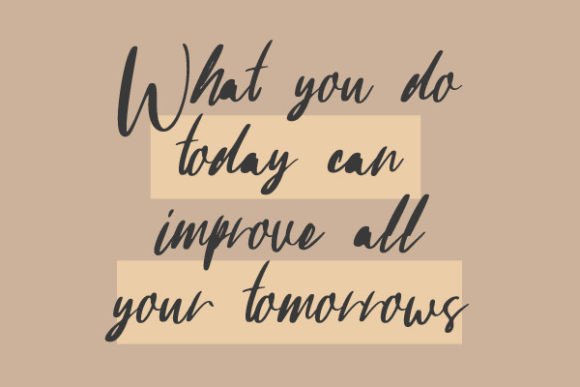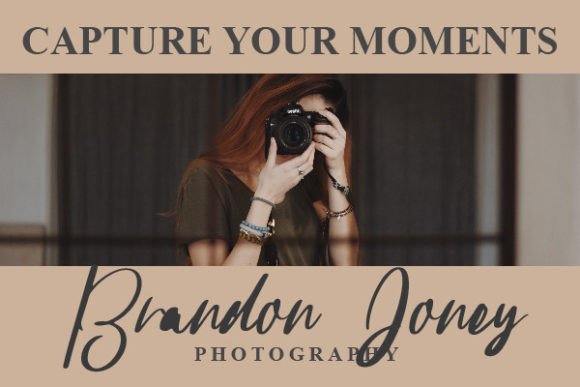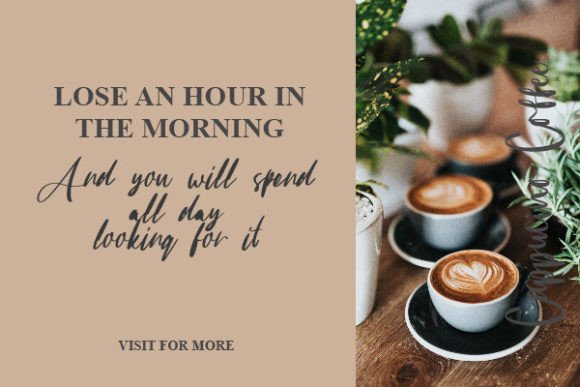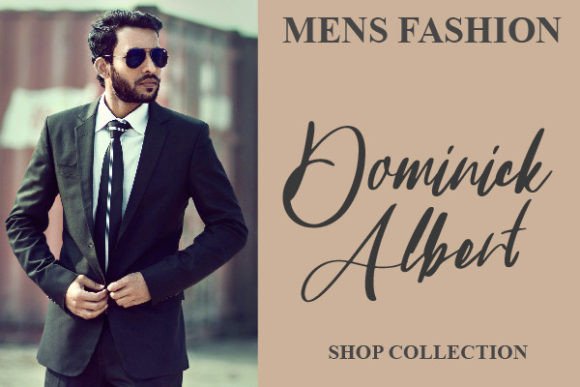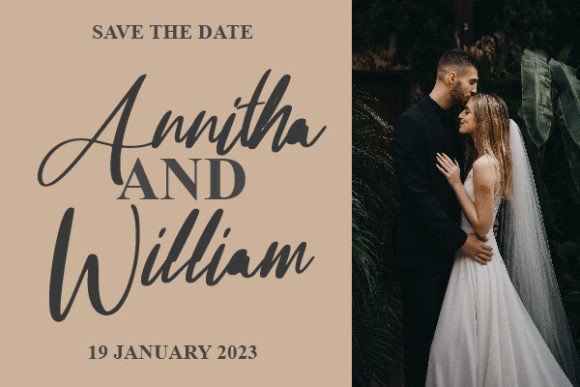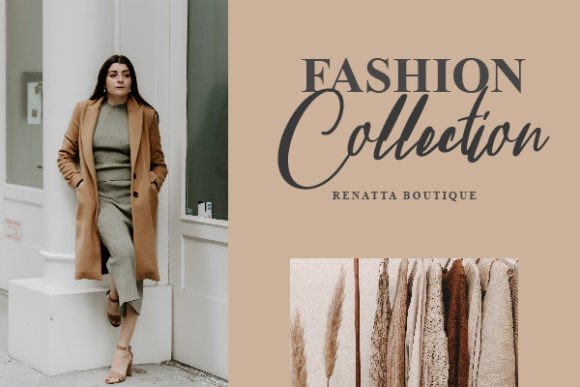
Introduction to Francisca Patrick Font
Have you ever been working on a creative project, pouring your heart and soul into every detail, only to have the font ruin the entire vibe? We’ve all been there. But what if you could elevate your design to the next level with a single font? Enter the stunning Francisca Patrick Font, a beautiful handwritten script font that’s sure to make your creative ideas shine.
Whether you’re a seasoned designer or a DIY enthusiast, the Francisca Patrick Font is a valuable addition to any design resource. With its high-quality, elegant lines and transparent background, this font is perfect for adding a touch of sophistication to your projects. And the best part? It’s available for free download, making it a must-have for any creative project.
Key Features of Francisca Patrick Font
- High-quality font with a transparent background, ideal for creative projects and design resources.
- Designed by a professional font creator, ensuring high-quality and consistent results.
Honest Review: Francisca Patrick Font
I recently stumbled upon the Francisca Patrick Font, and I’m excited to share my thoughts on this design resource. As a designer, I’m always on the lookout for high-quality fonts to elevate my creative projects. And let me tell you, this one doesn’t disappoint.
- What works well: ✨ The Francisca Patrick Font is incredibly versatile, making it perfect for a wide range of design projects. Its elegant and refined look is sure to impress.
- What works well: ✨ The transparent background makes it easy to use with any design element, allowing for seamless integration.
However, I did encounter a few limitations: ⚠️ The font could benefit from a few more weight options, as the available weights can be a bit limiting for some projects.
Overall, I’m thoroughly impressed with the Francisca Patrick Font. Its high-quality design and versatility make it a valuable resource for any designer. If you’re looking for a new font to elevate your creative project, I highly recommend giving this one a try.
Tips for Getting the Most Out of Francisca Patrick Font
For creative projects, use the Francisca Patrick Font in combination with a transparent background to achieve a unique and eye-catching design. Experiment with different font sizes and styles to find the perfect balance for your design. You can also use the font in combination with other design elements, such as images and graphics, to add depth and interest to your project.
Common Use Cases for Francisca Patrick Font
The Francisca Patrick Font is a versatile design resource that can be used in a variety of creative projects, including logos, business cards, and marketing materials. Its high quality and transparent background make it an ideal choice for designs that require a unique and eye-catching look. You can also use the font in personal projects, such as invitations and greeting cards, to add a touch of elegance and sophistication.